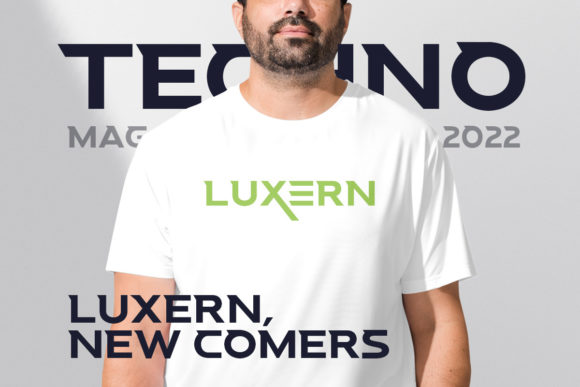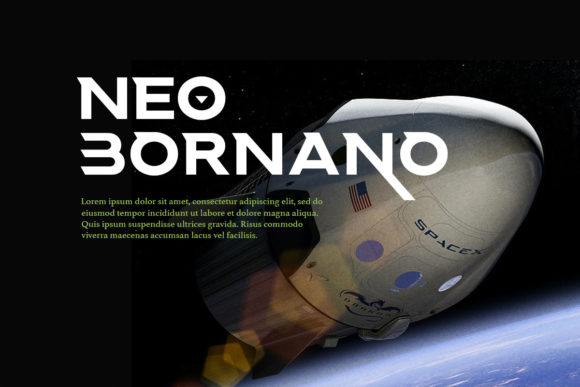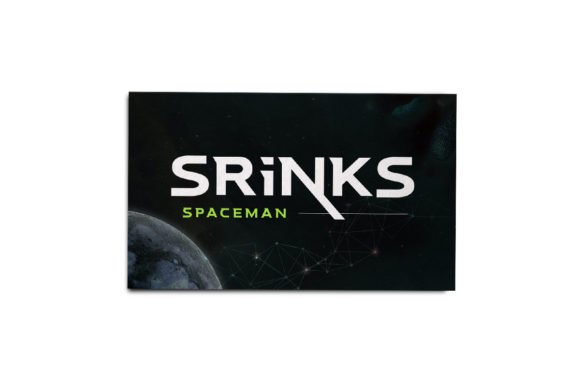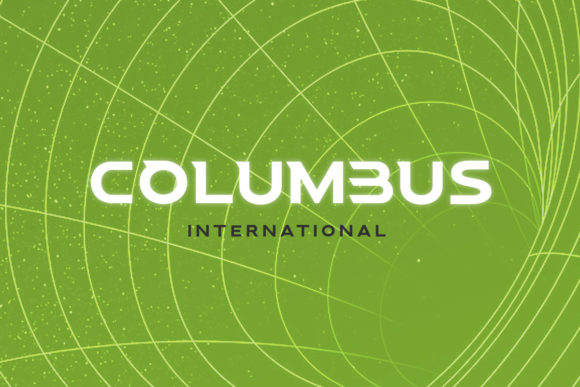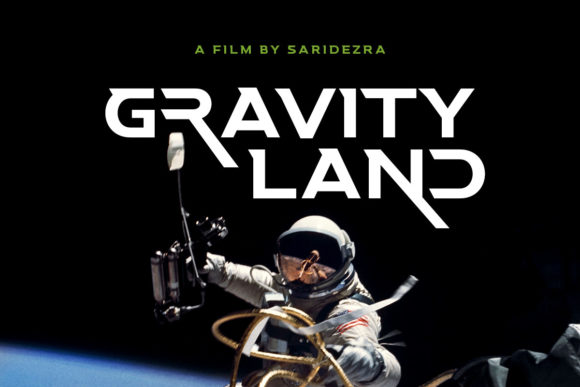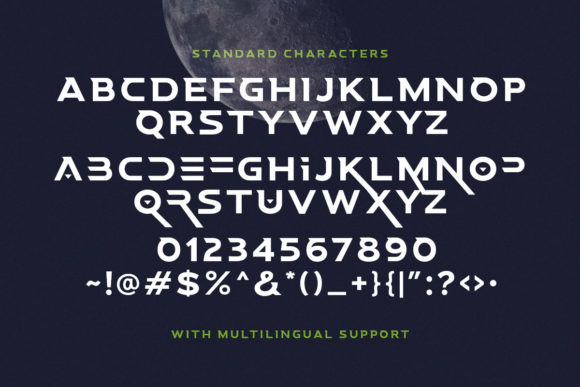
HomeSerif FontsSpace Boards Font Serif Fonts Space Boards Font FacebookXPinterestWhatsApp SPACE BOARDS FONT SPECIMEN Space board is a unique slab serif font. With magnificent and somewhat unearthly characters, this font is a perfect match for hi-tech logotypes, science-fiction movie posters, space marketing materials, and more! People also explored Bokeseni Light Expanded Font Aqille Font Sugar Rain Font Dellyssion Font Jalie Font Mattheo Font Midnight Asylum Dellon Font Saturday Font 304 0 TagsSpace Boards Previous articleButtermilk FontNext articleAt Home Font LEAVE A REPLY Cancel reply Comment: Please enter your comment! Name:* Please enter your name here Email:* You have entered an incorrect email address! Please enter your email address here Website: Save my name, email, and website in this browser for the next time I comment. Personal Use Free The Royal Personal Use Free Read more about this font Letter Clips Personal Use Free Read more about this font Jilliant Personal Use Free Read more about this font Crellia Script Personal Use Free Read more about this font BLOG Free vs Paid Fonts: Why Investing in Premium Fonts Is Worth It Free vs Paid Fonts: Why Premium Fonts Are Worth It in 2025 The debate of free vs paid fonts continues in the design world. While... Where to Buy American Fonts Online in 2024 To increase your work productivity, choose the most readable fonts. Free Fonts Risk: Why Free Fonts Can Be Dangerous for Designers